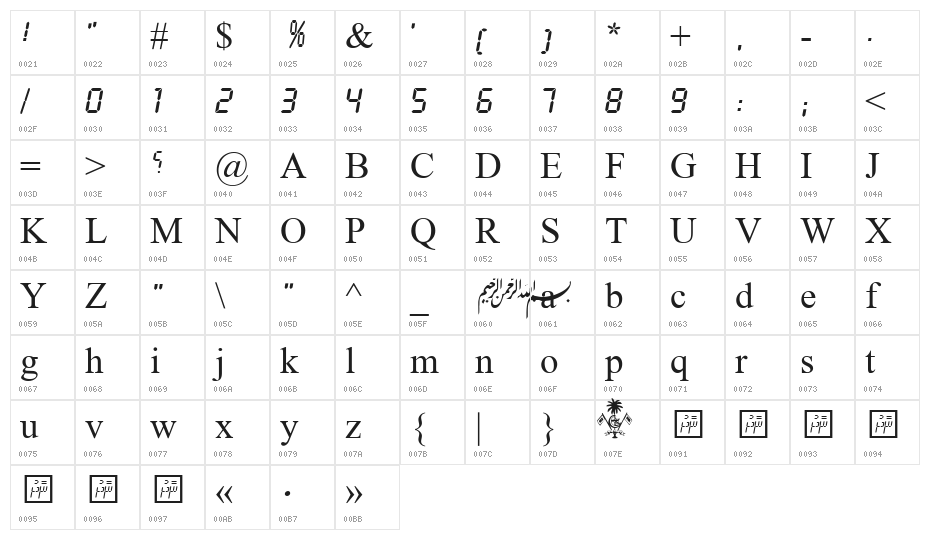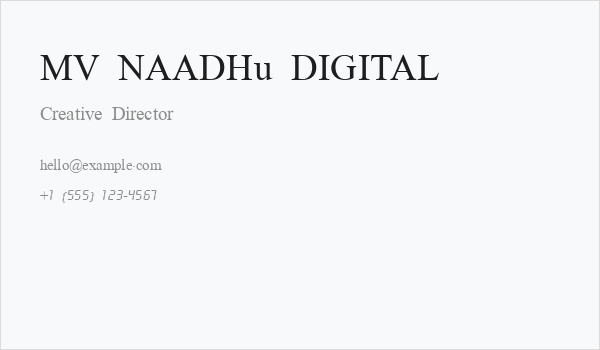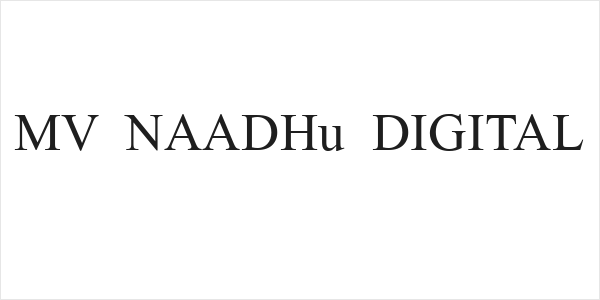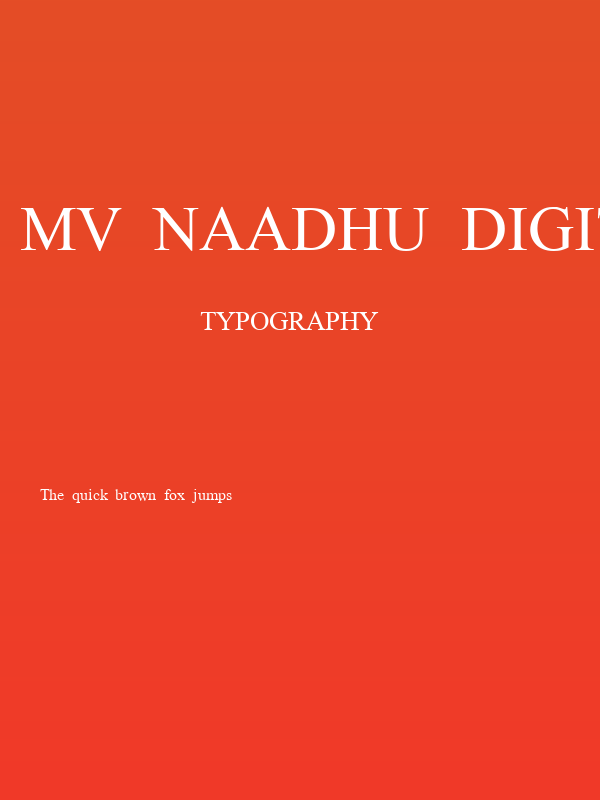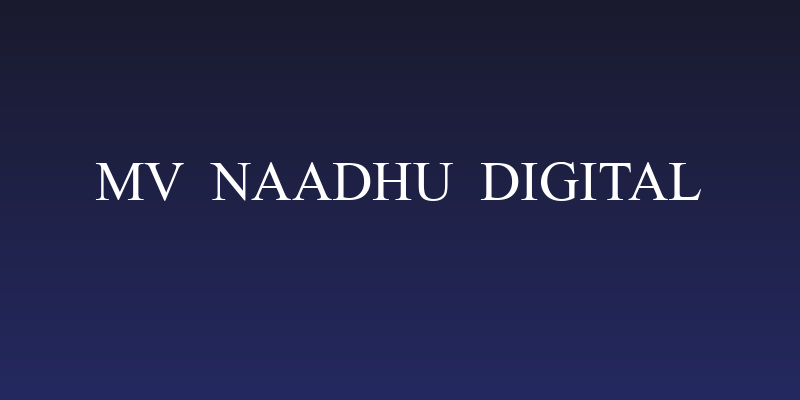
MV NAADHu DIGITAL Font
MV NAADHu DIGITAL Description
This font features a modern serif style with a clean and professional appearance. The uppercase letters exhibit a strong and authoritative presence, while the lowercase letters maintain readability and elegance. The numerals are distinct and easy to read, making them suitable for various applications. The special characters are designed to complement the overall style, ensuring consistency across different uses. The font's design balances traditional serif elements with a contemporary touch, making it versatile for both digital and print media.